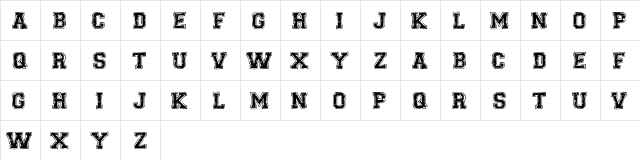
Universal-college_DEMO-version Regular
Design Context for Universal-college_DEMO-version Typeface
Universal-college_DEMO-version brings high-energy athletic personality to the page — its confident, muscular forms are built for impact.
Built for sports team identities, athletic apparel, event posters, and high-energy promotional material.
Font Pairing: Use alongside a condensed or geometric sans for supporting copy — keep the pairing bold, functional, and free of ornament.
Pro Tip: Universal-college_DEMO-version thrives on contrast — try it large, bold, and tight against a clean background for maximum visual impact.